A Type Face is a unique portrait created entirely from the letters of someone's name, blending typography and design to form a personalized work of art.
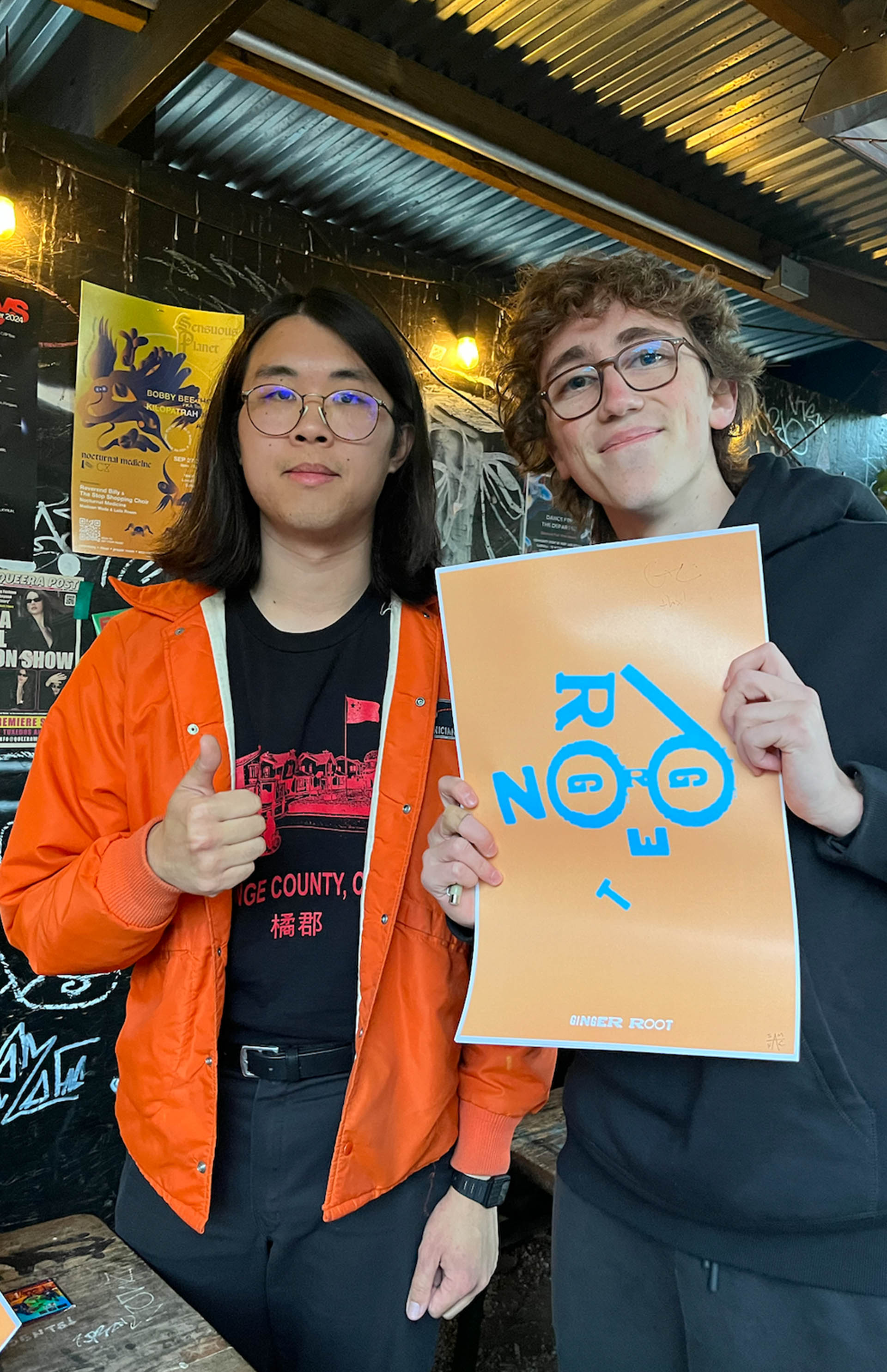
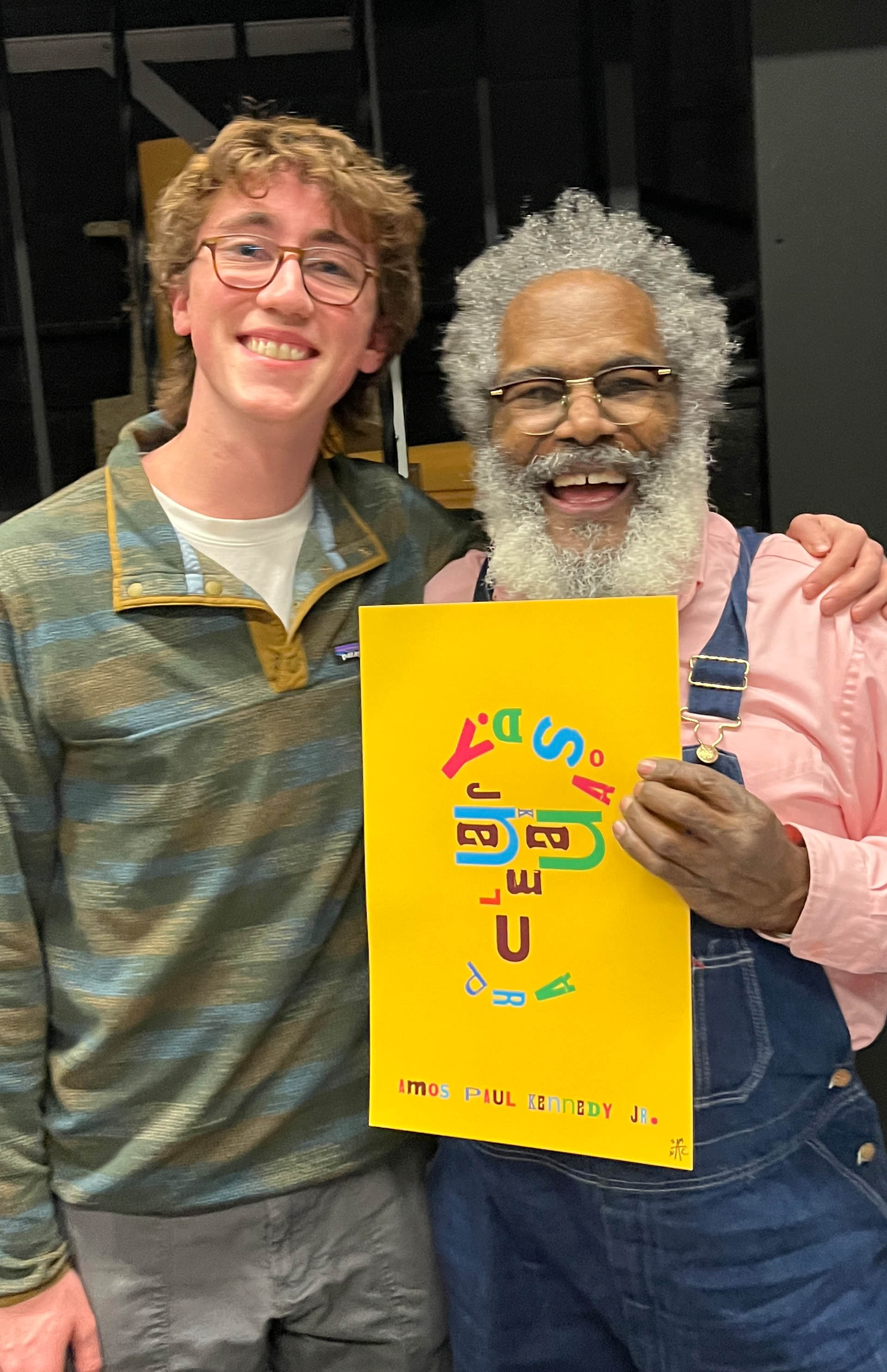
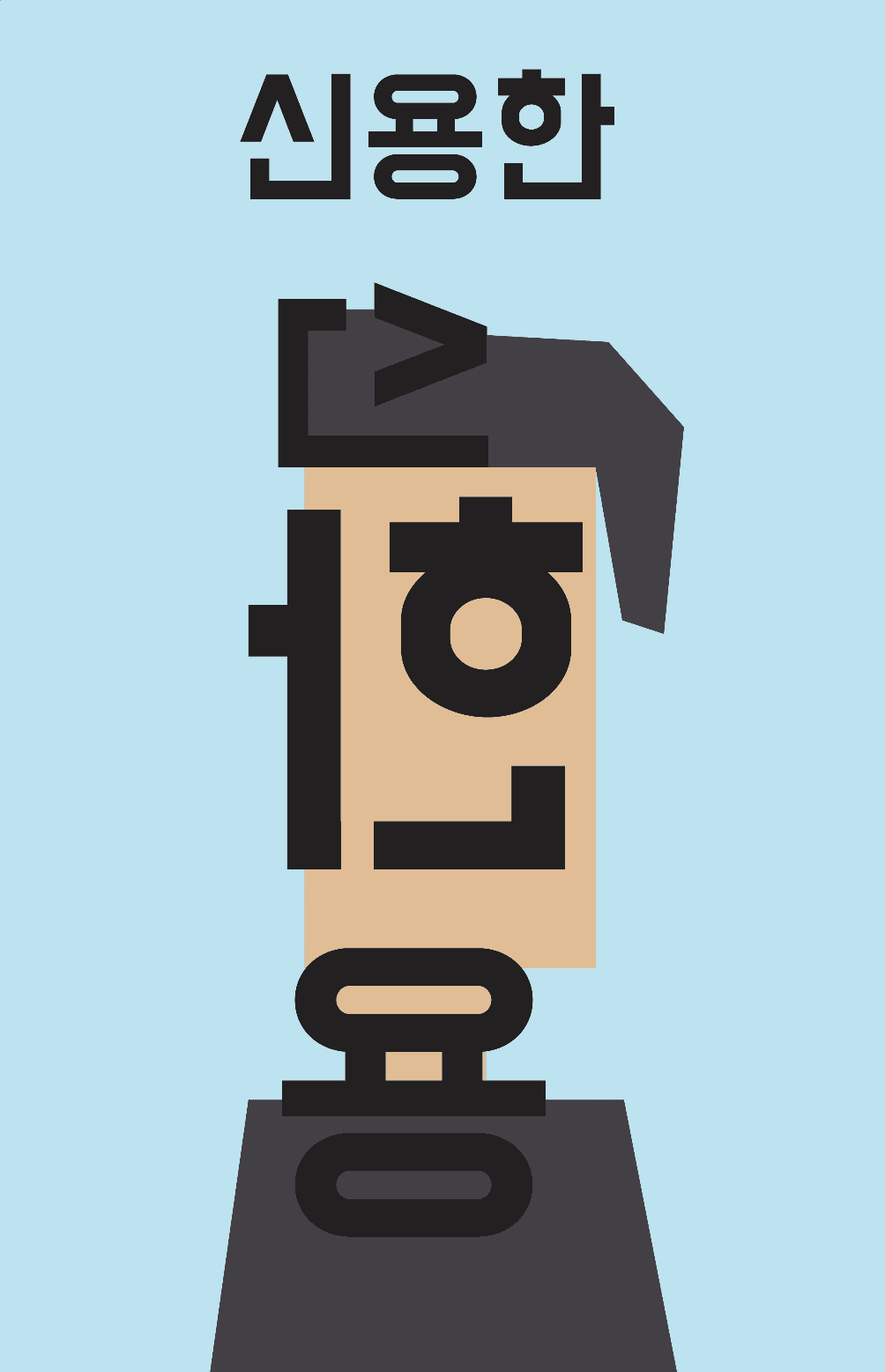
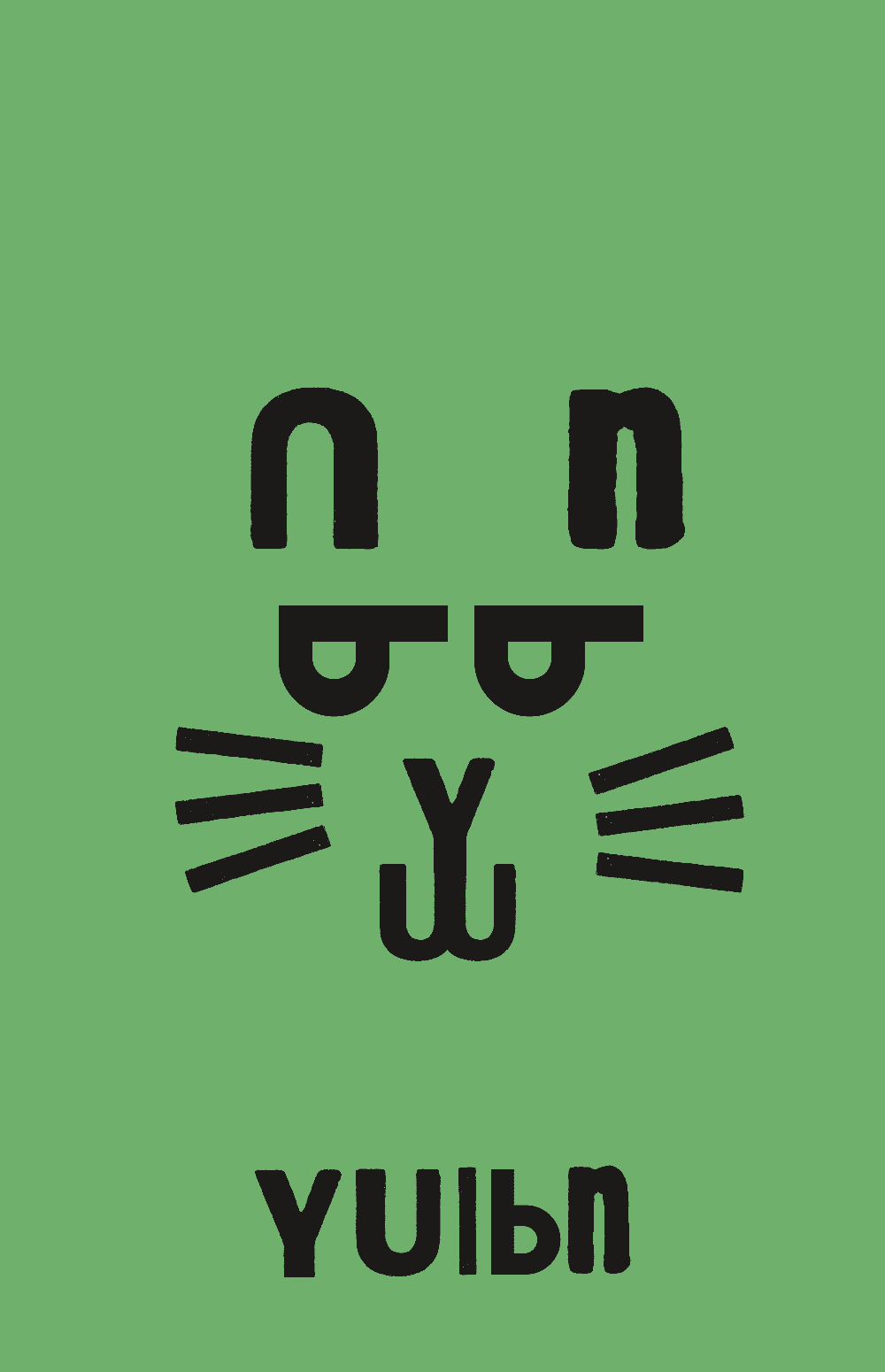
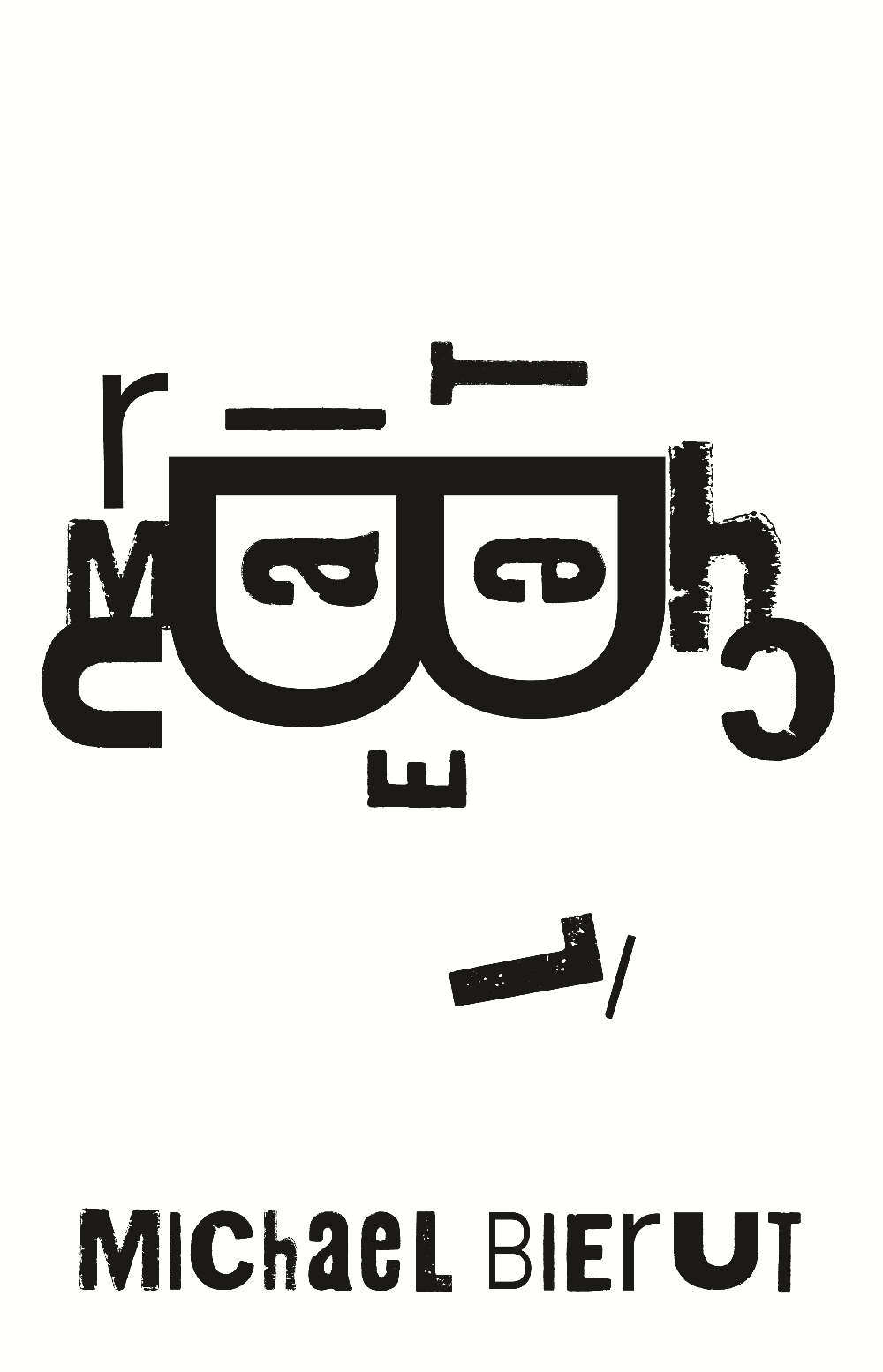
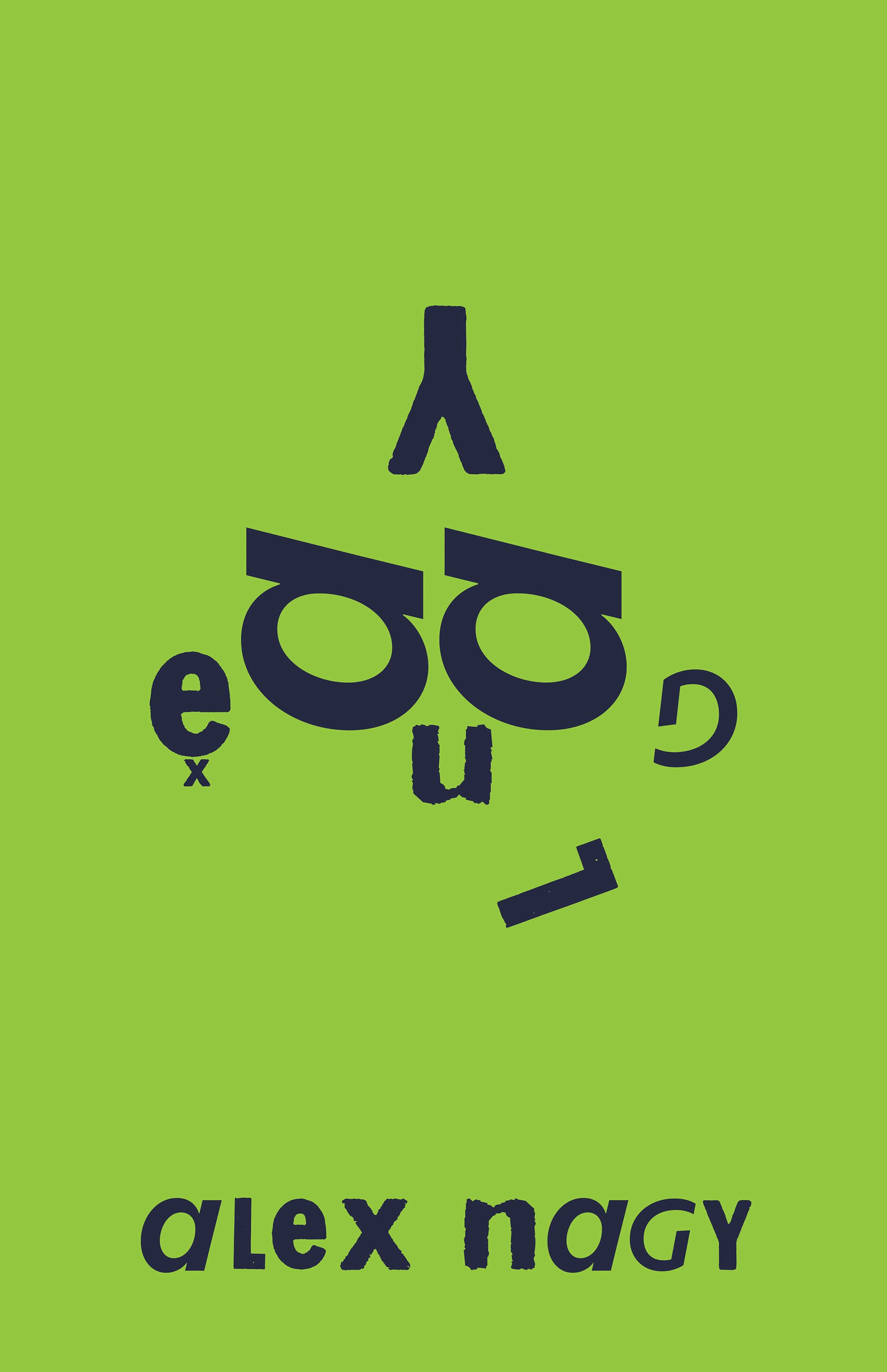
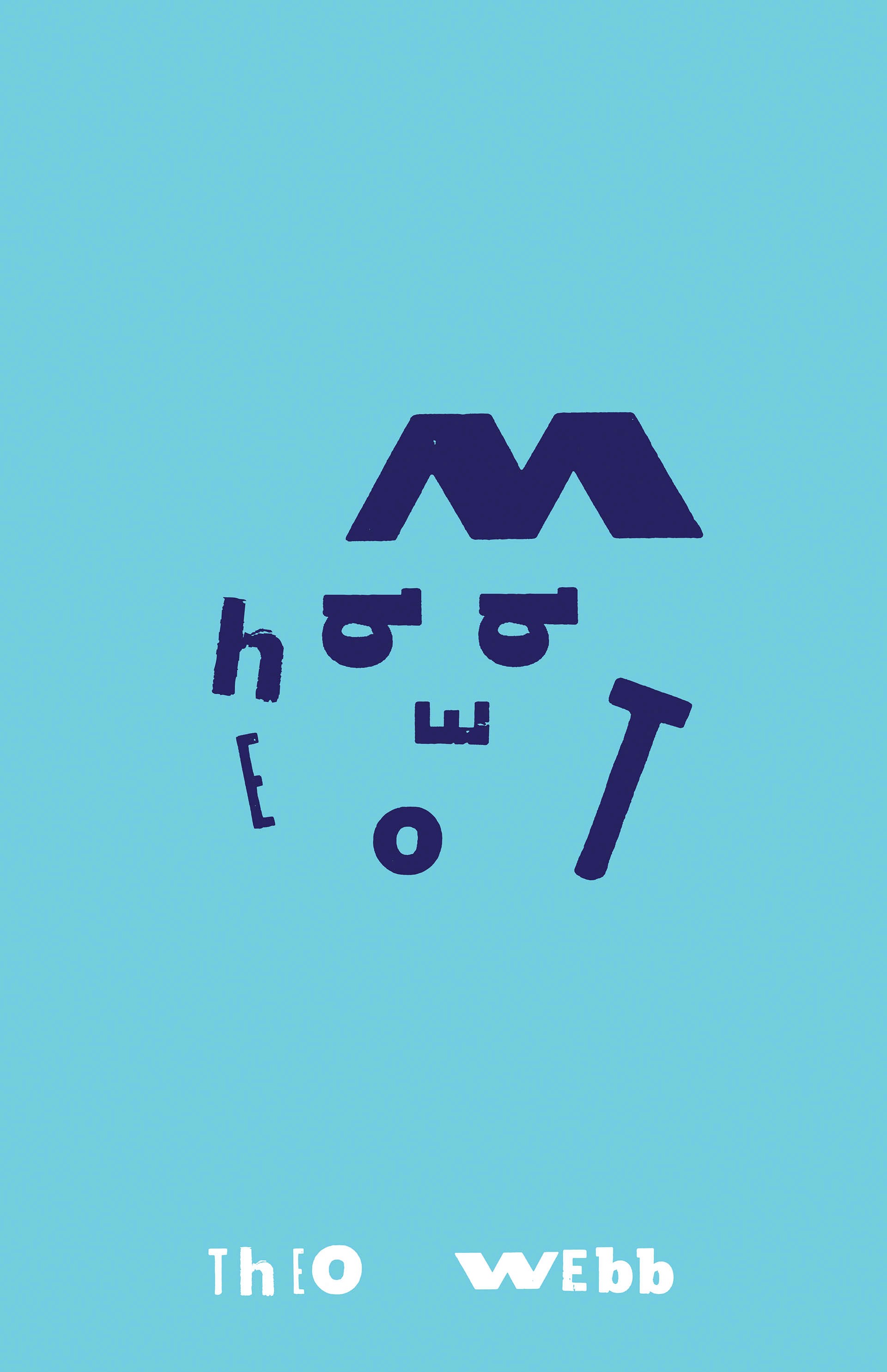
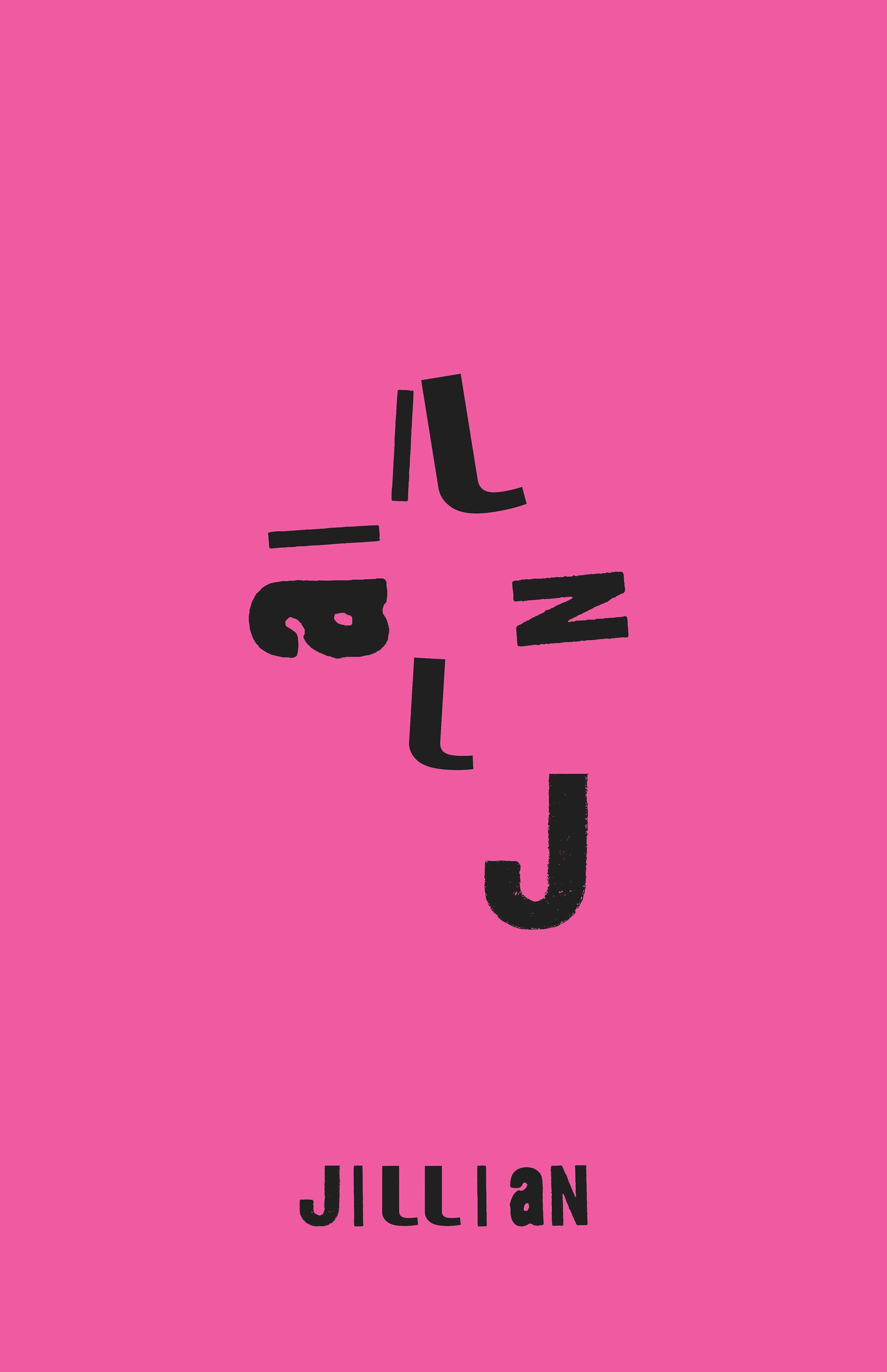
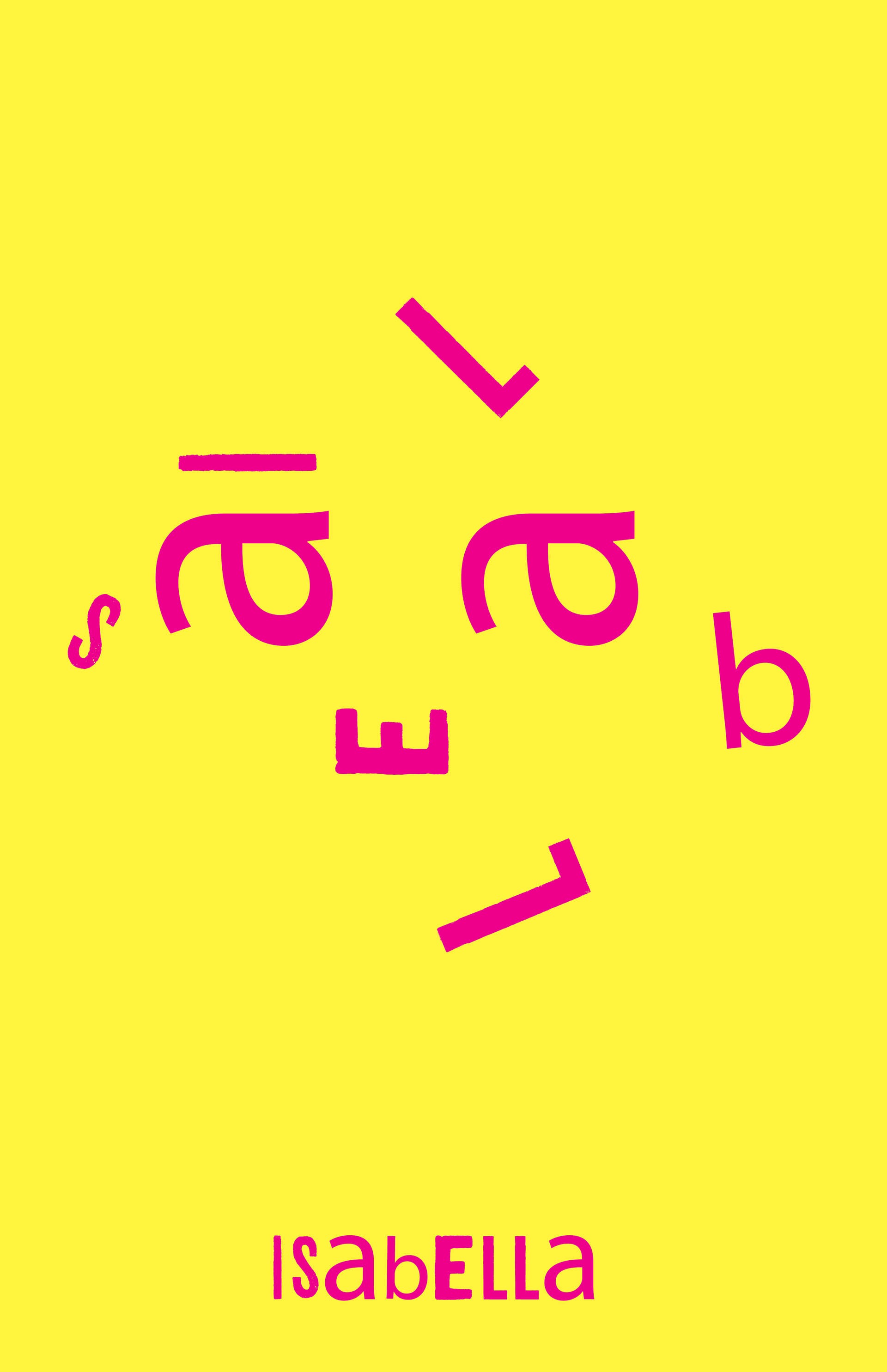
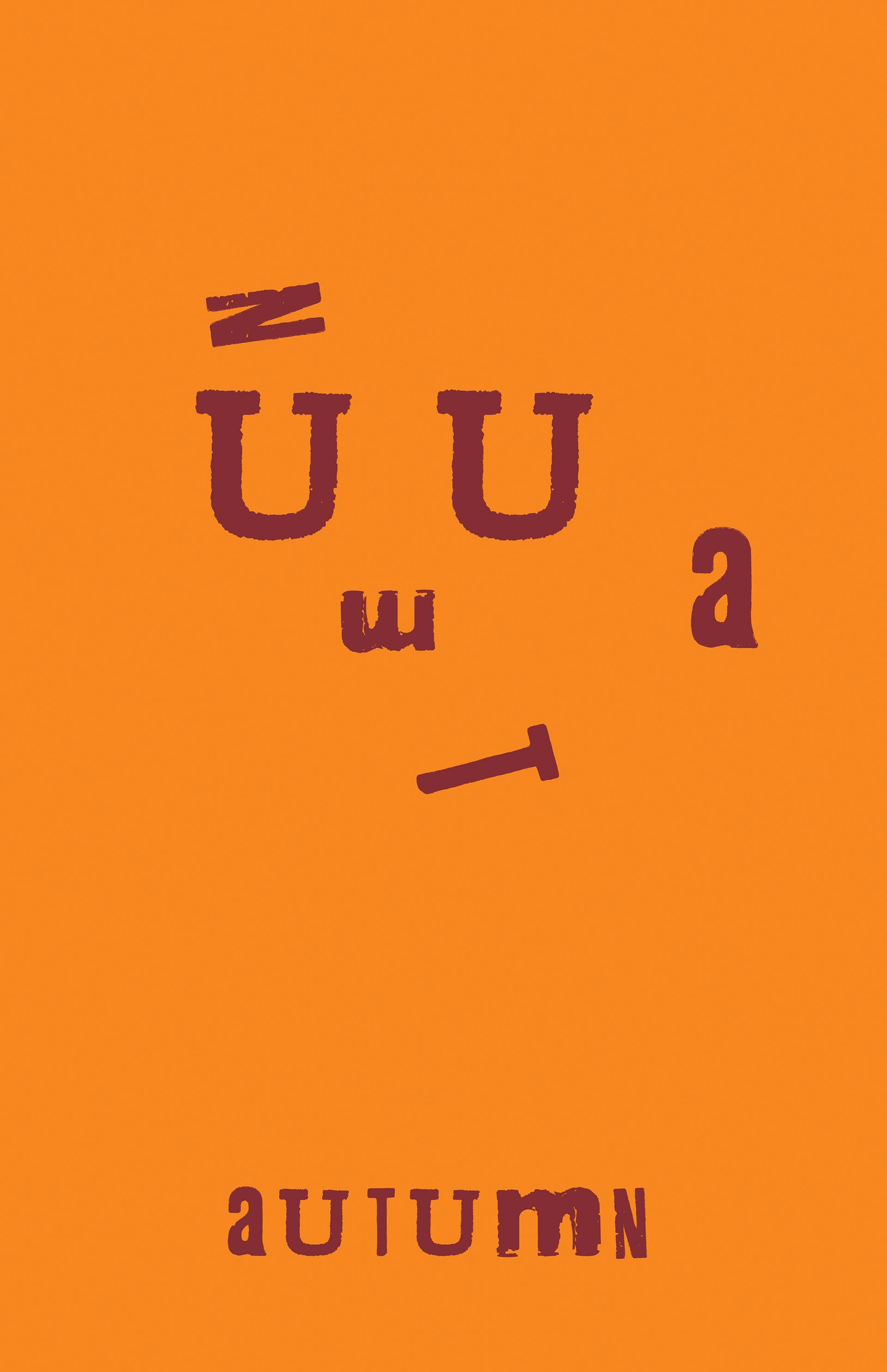
A Type Face is a unique portrait created entirely from the letters of someone's name, blending typography and design to form a personalized work of art.